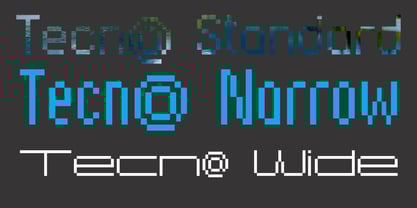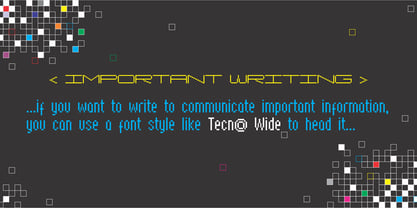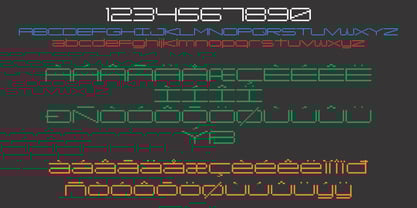
Tecna Wide
by Descarflex
The Tecna Wide Font Family was designed by Jorge Clavo and published by Descarflex. Tecna Wide contains 1 styles.
The Tecn@ Wide family was designed so that its characters are legible and easy to interpret in any writing in its headers or titles to cover more space; For example, the descriptive memory of Plans or Instructions. Tecn@ Wide complements the Tecn@ Background Light and Dark Square Triangle font family.
Designers: Jorge Clavo
Publisher: Descarflex
Foundry: Descarflex
Design Owner: Descarflex